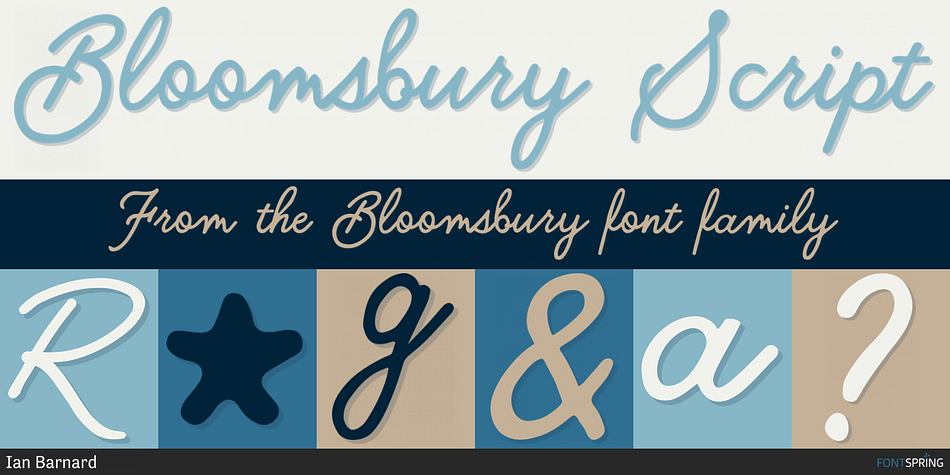
Bloomsbury Script
Designed by Ian Barnard, Bloomsbury is a hand display and script font family. This typeface has three styles and was published by Ian Barnard.
Bloomsbury - A hand drawn typeface in 3 styles - Script, Sans & Serif
Use in combination with each other to make awesome type designs for logos, posters, album covers, packaging, Instagram posts, etc.
The script version includes 3 different sized end letter flourishes, access through the glyphs panel in your favourite design programs.